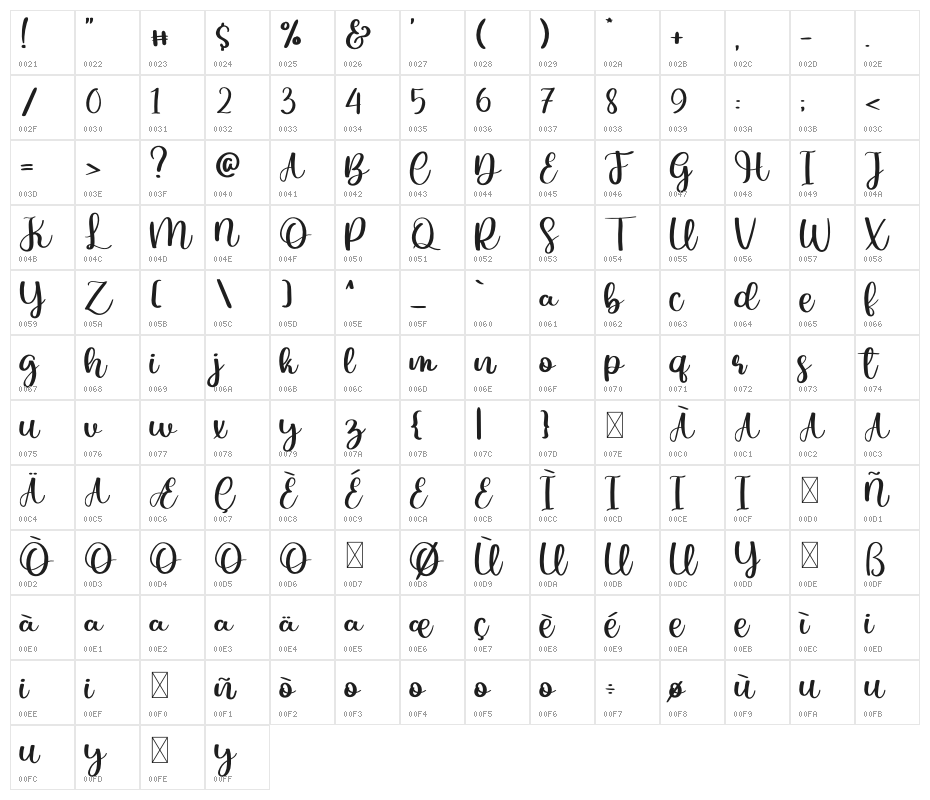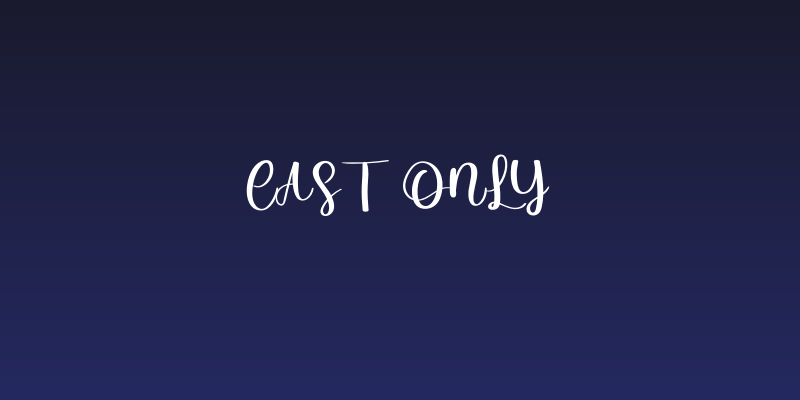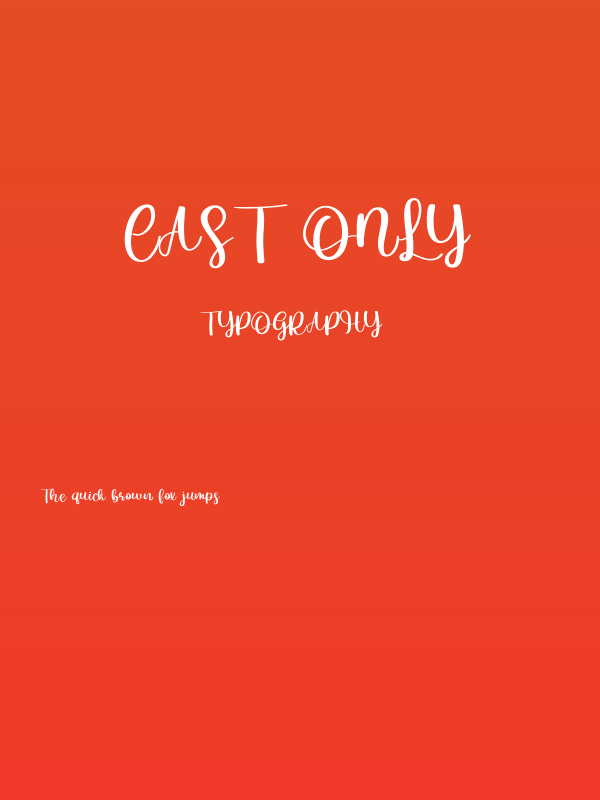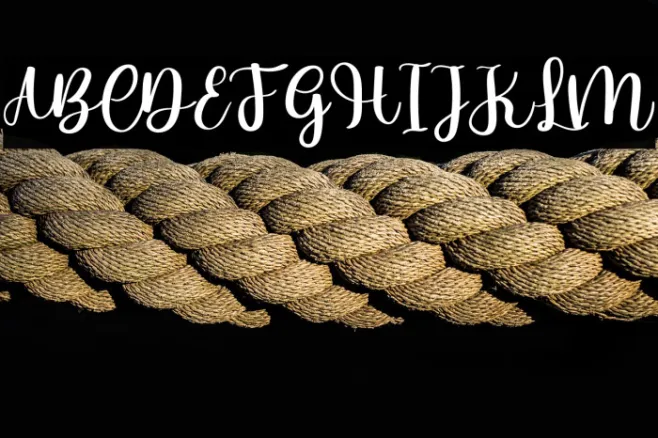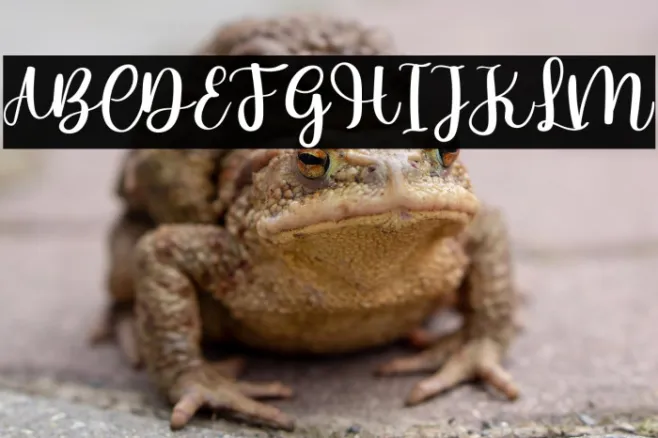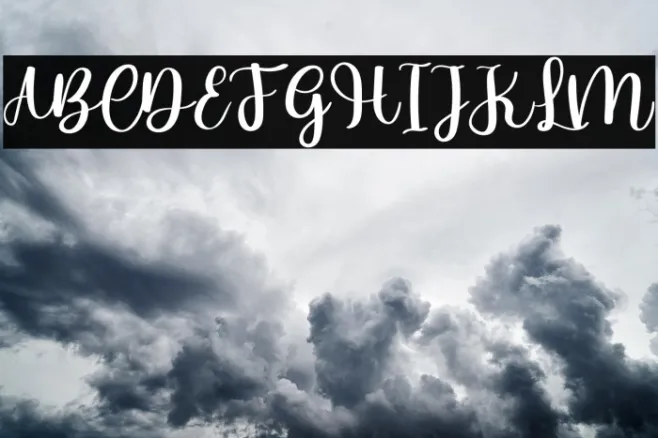
Cast Only Font
Cast Only Description
This font features a lively and flowing script style, characterized by its elegant and smooth curves. The uppercase letters exhibit a playful yet sophisticated flair, with each letter seamlessly connecting to the next. The lowercase letters maintain a consistent rhythm, enhancing the font's readability while preserving its artistic charm. Numbers and special characters are crafted with the same attention to detail, ensuring a cohesive look across all elements. The overall appearance is both modern and timeless, making it suitable for a variety of design applications.